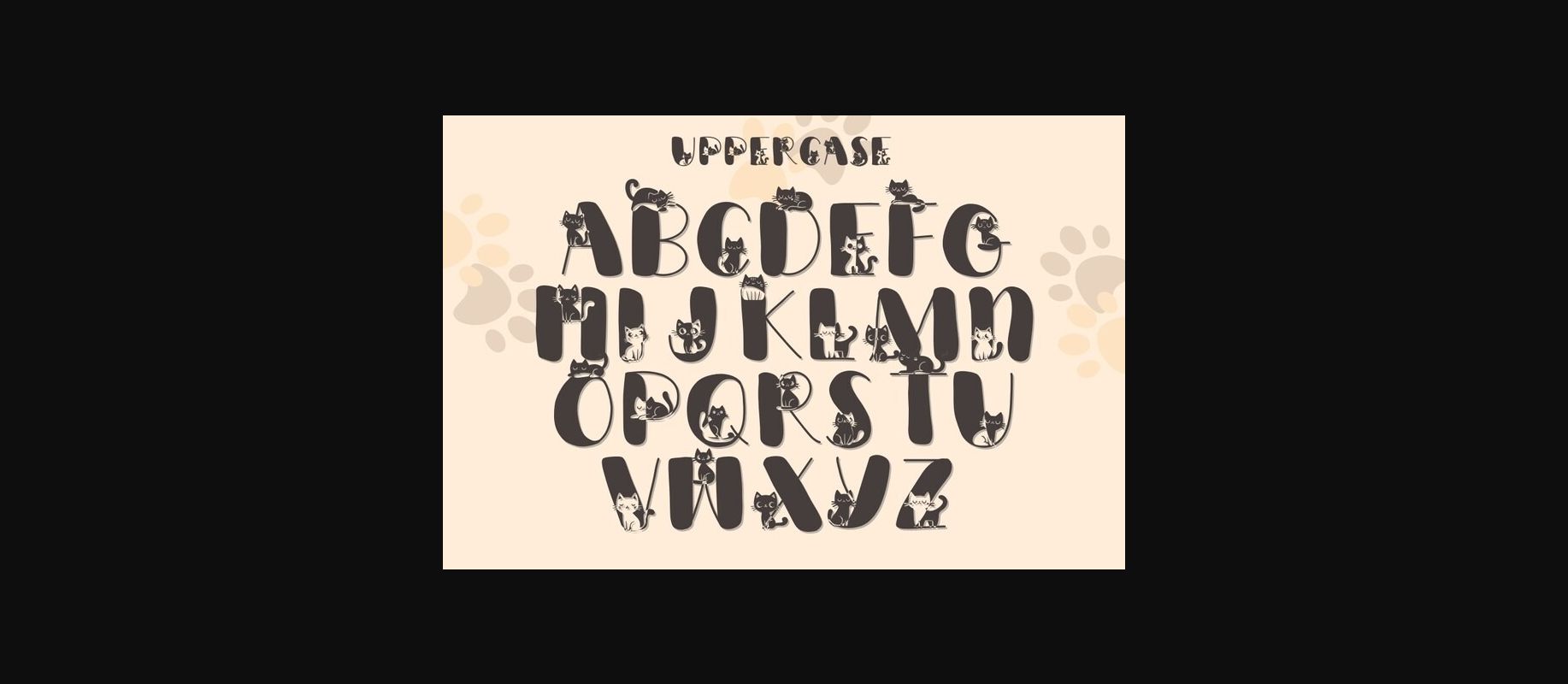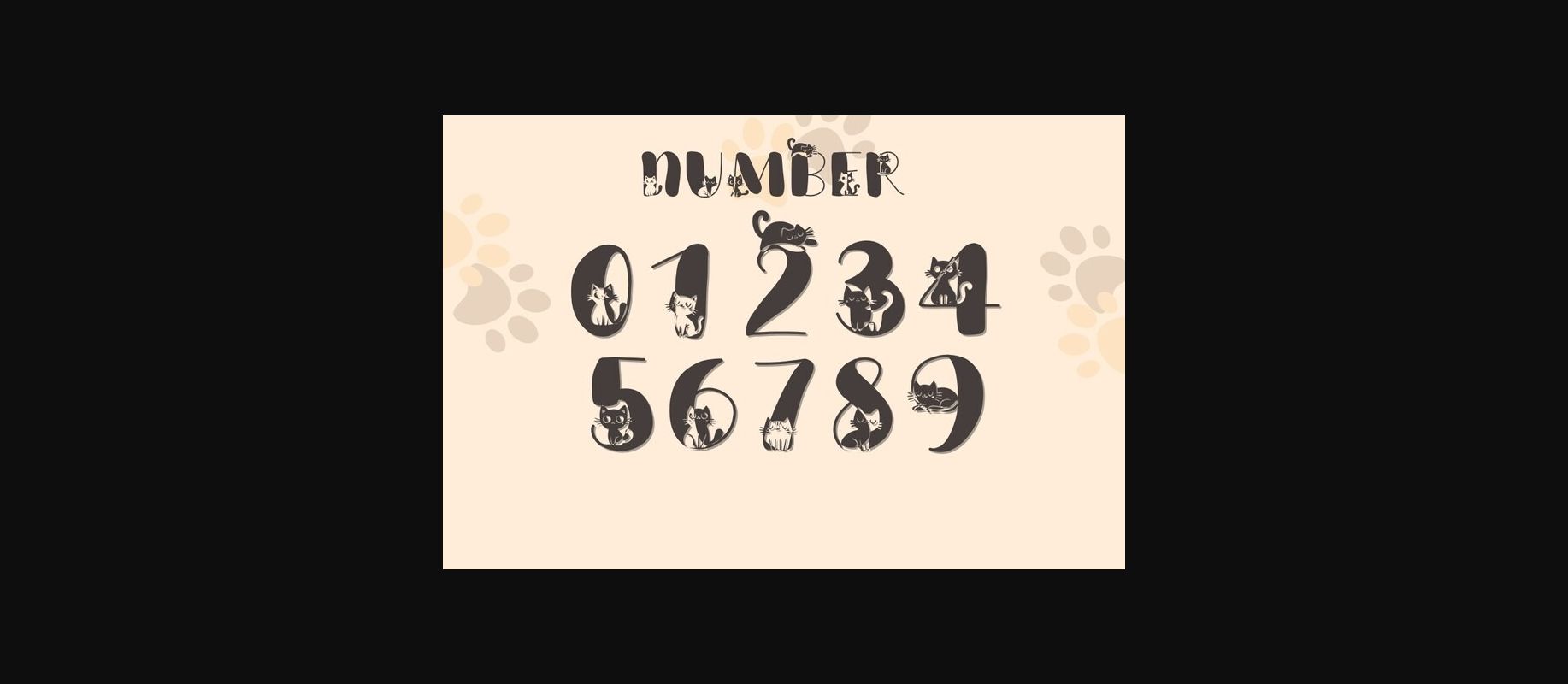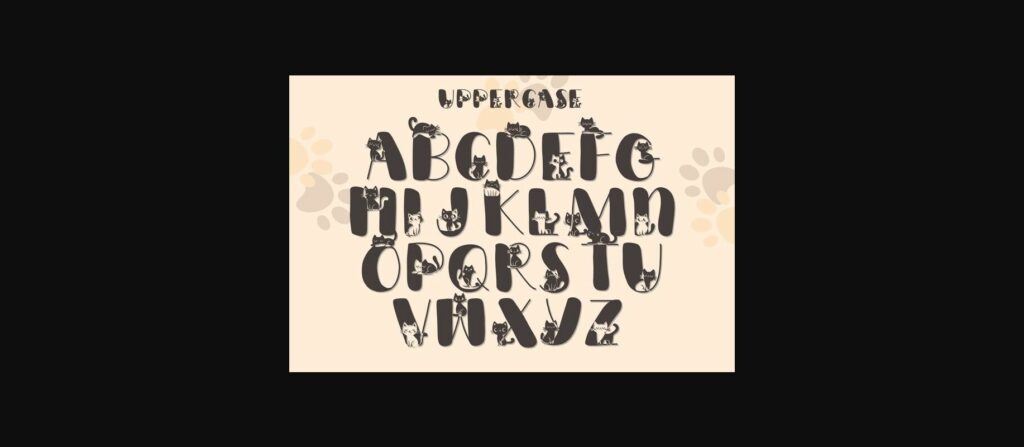
Cat Character Font
About Cat Character Font
Experience the delight of “Cat Character” font, an enchanting and playful typeface perfect for cat lovers and creative ventures. With each alphabet playfully fused with cute cat silhouettes, your messaging gains a lively, whimsical charm. This font pairs neat lines with feline-inspired designs for a unique, captivating look. Ideal for crafting pet store logos, fun book covers, or heartwarming greeting cards, “Cat Character” infuses your projects with an irresistible, cozy cat appeal.